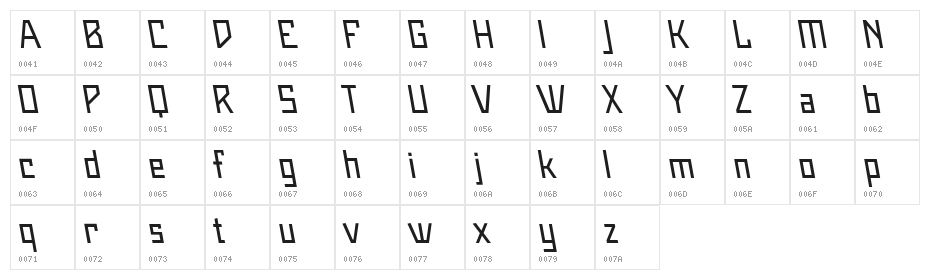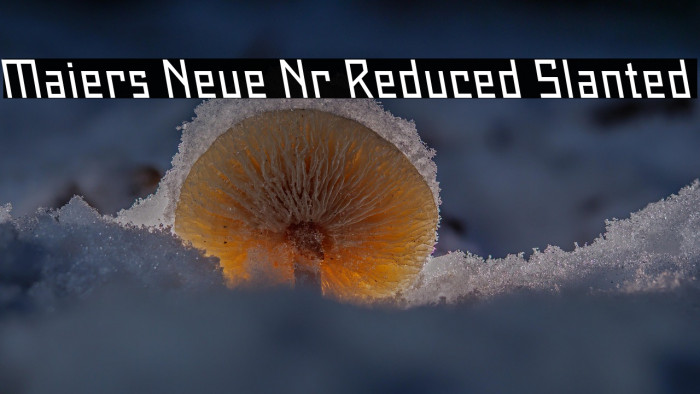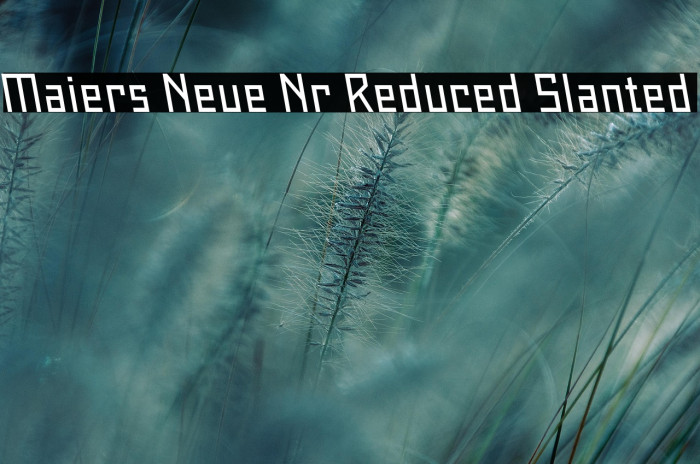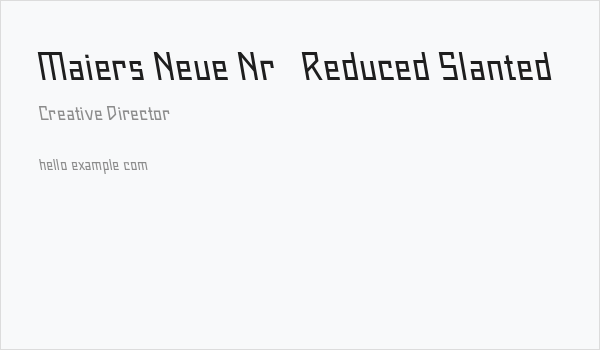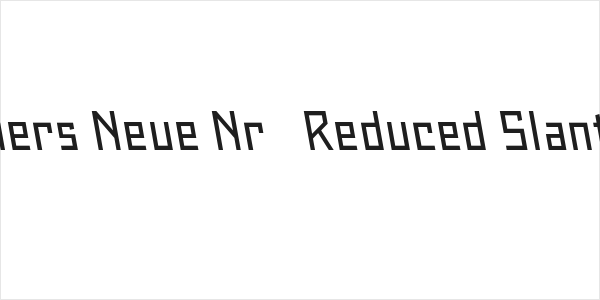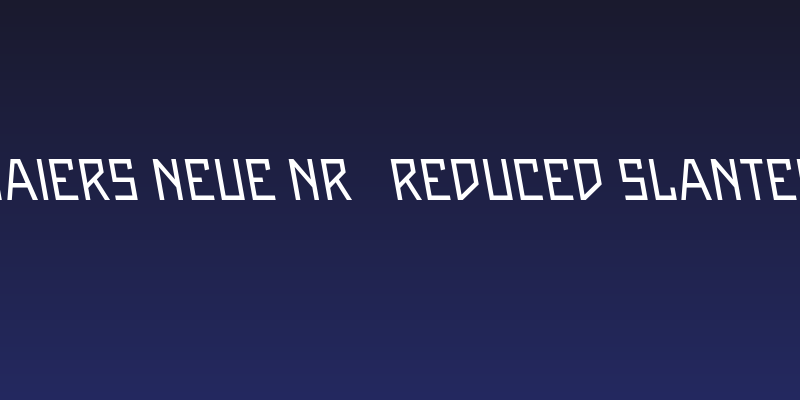
Maiers Neue Nr.8 Reduced Slanted Font
Maiers Neue Nr.8 Reduced Slanted Description
This font features a geometric and angular design with a distinct slant, giving it a modern and dynamic appearance. The characters are constructed with straight lines and sharp angles, creating a sense of movement and energy. The uppercase and lowercase letters maintain a consistent style, with a uniform stroke width that adds to the font's bold and assertive look. The numerals and special characters follow the same design principles, ensuring a cohesive appearance across all glyphs. This font's unique style makes it suitable for projects that require a contemporary and edgy aesthetic.